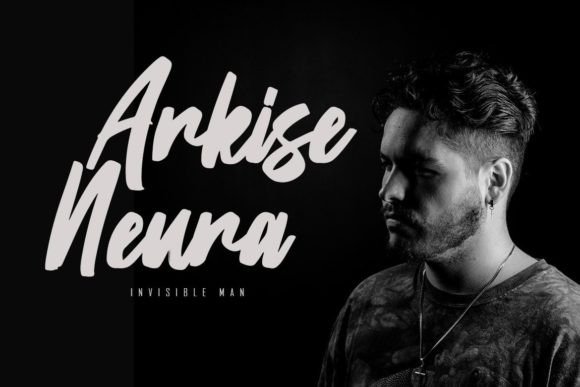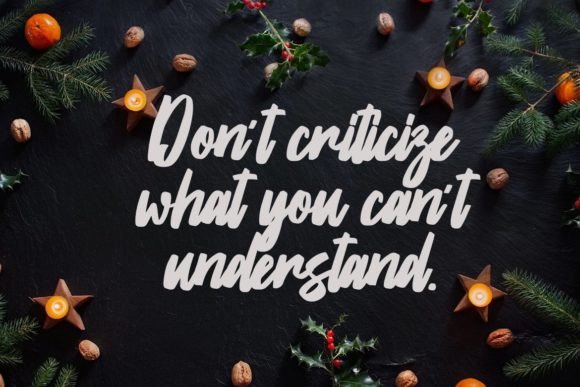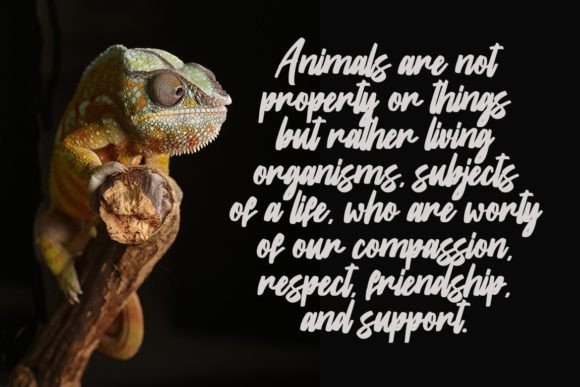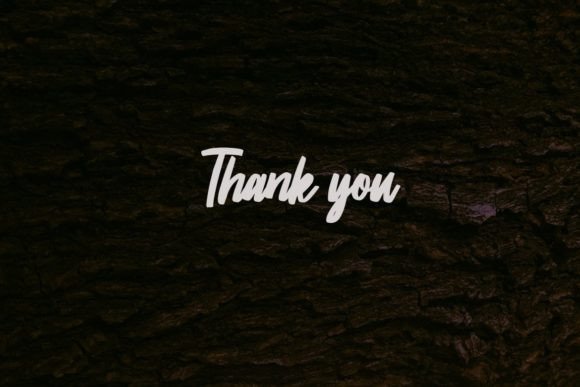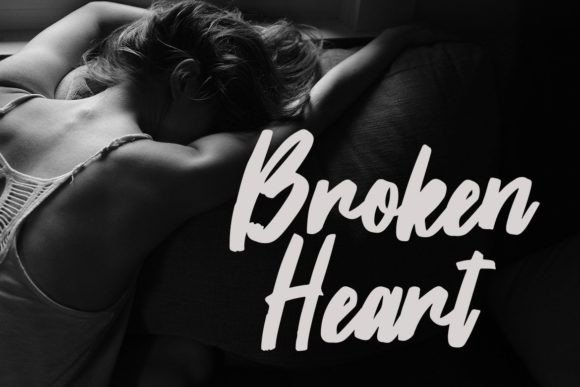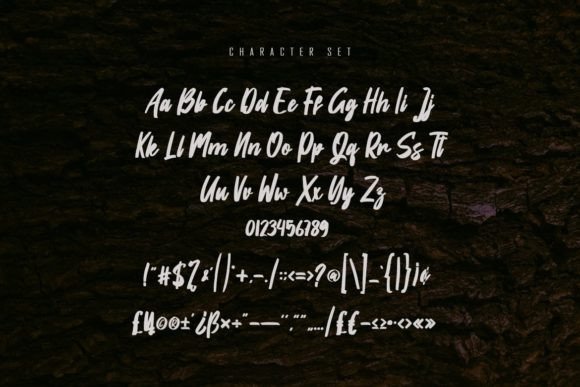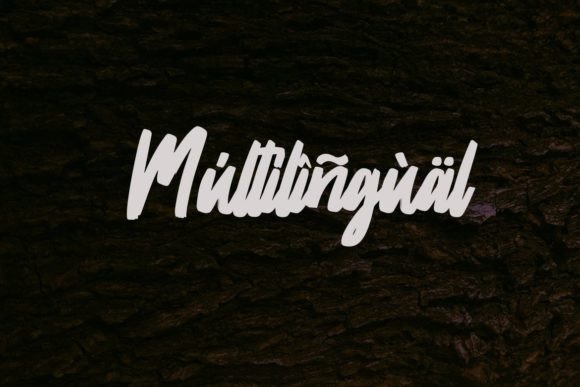
Vafgary Font
About Vafgary Font
“Vafgary” is a cursive and bold handwritten font designed to infuse an original and distinctive flair into your business branding and design projects. The combination of cursive elements with a bold weight creates a unique typographic style that can make a strong visual impact.
The cursive nature of “Vafgary” adds a touch of elegance and fluidity to the font, making it suitable for a variety of applications. Whether you’re designing a business logo, promotional materials, or any project that requires a handwritten touch, “Vafgary” brings a personalized and original character to the forefront.
The bold weight of the font enhances its visibility and makes a statement. This is particularly advantageous for business-related designs where you want to convey a sense of confidence and presence. “Vafgary” ensures that your text stands out with a bold and commanding aesthetic.
The handwritten quality of “Vafgary” contributes to a sense of authenticity and human touch. In business branding, this can be crucial for creating a connection with your audience and conveying a personal and approachable image.
Whether you’re working on digital or print materials, “Vafgary” offers a versatile solution for adding an original flair to your business design projects. Its cursive and bold characteristics make it a dynamic choice that can adapt to different industries and design themes.
In summary, “Vafgary” is a cursive and bold handwritten font that brings an original and personalized flair to your business designs. Whether you’re creating a logo, promotional materials, or other visual content, “Vafgary” ensures that your text stands out with a unique and distinctive style. Embrace the font to add an authentic and original touch to your business branding and creative endeavors.